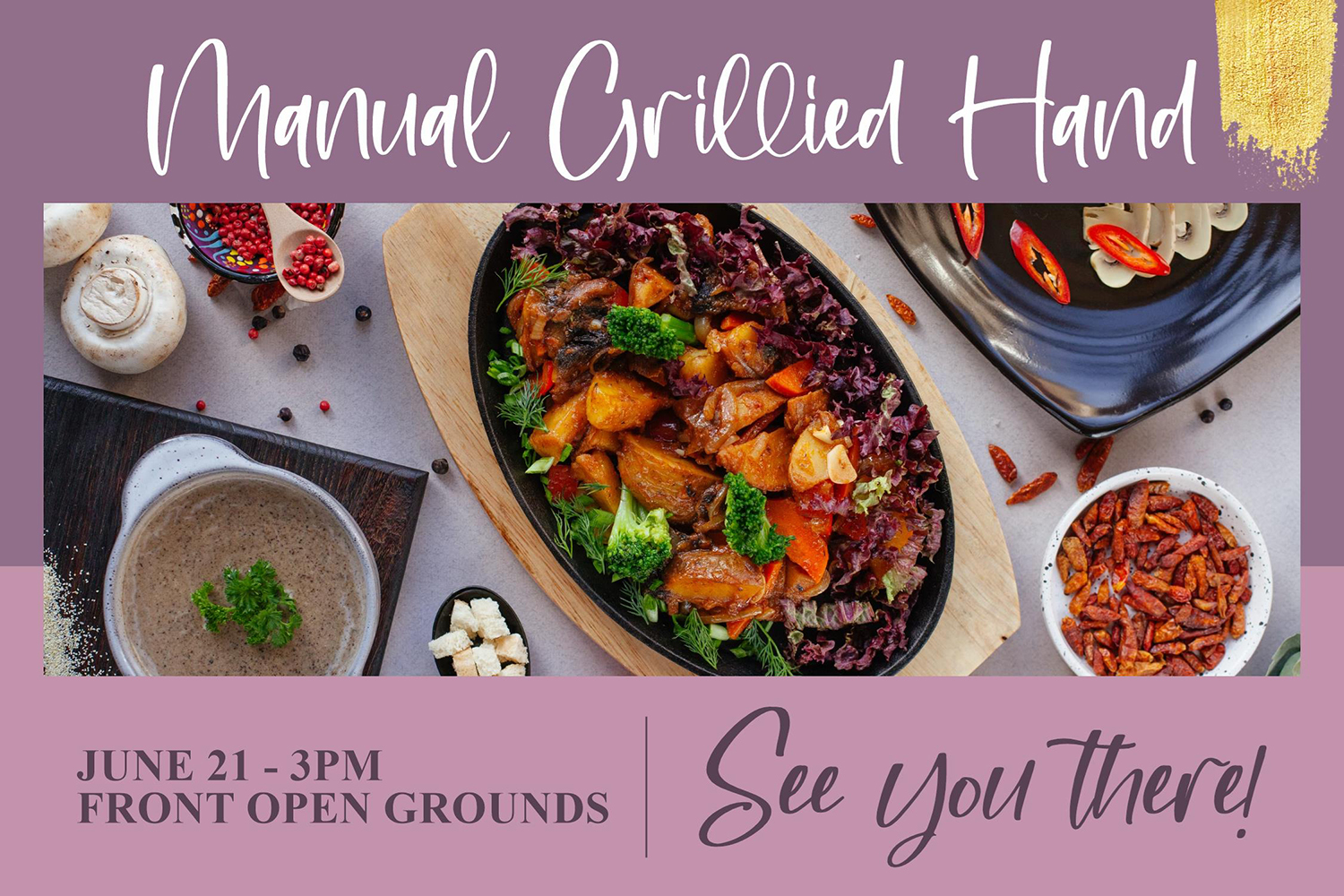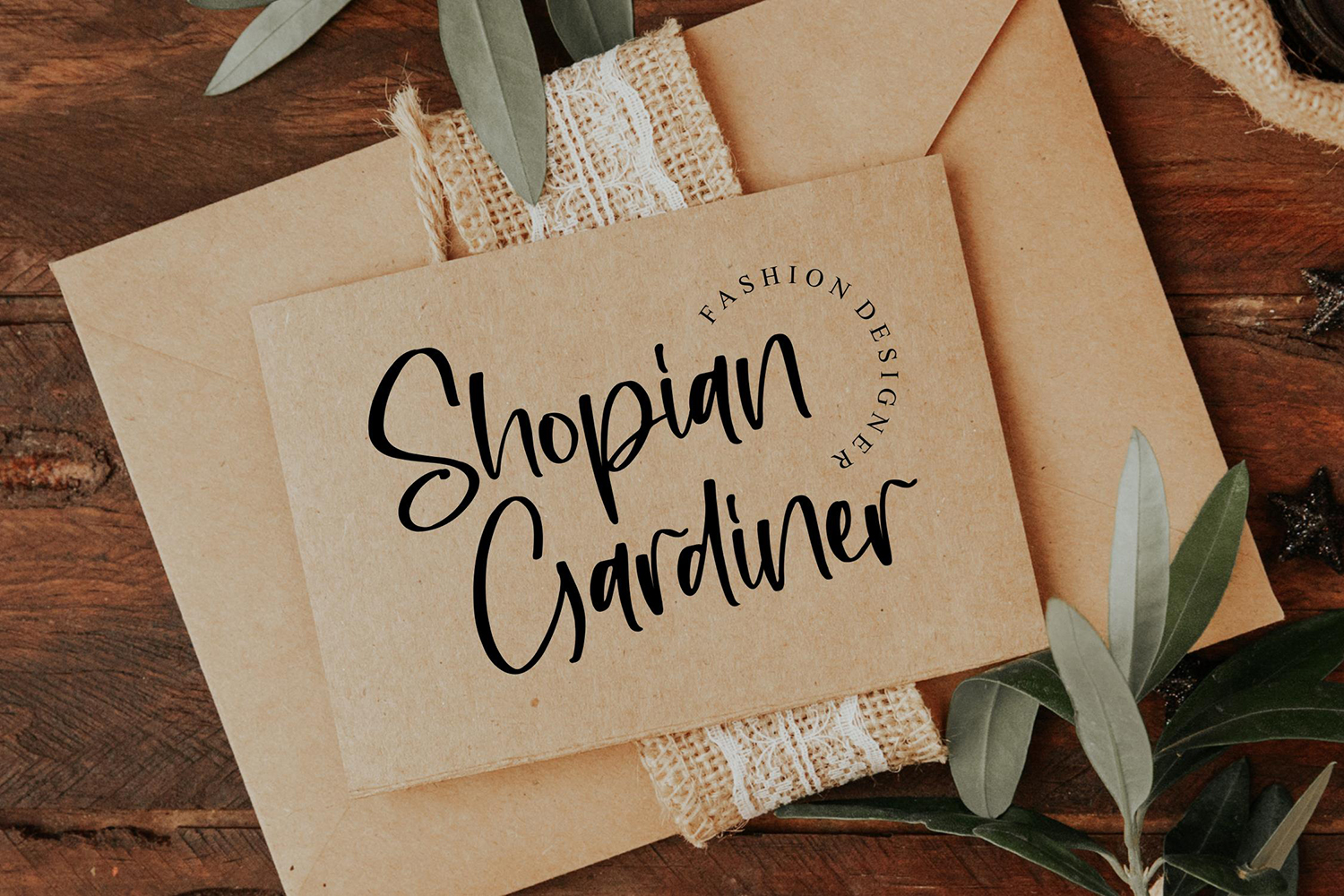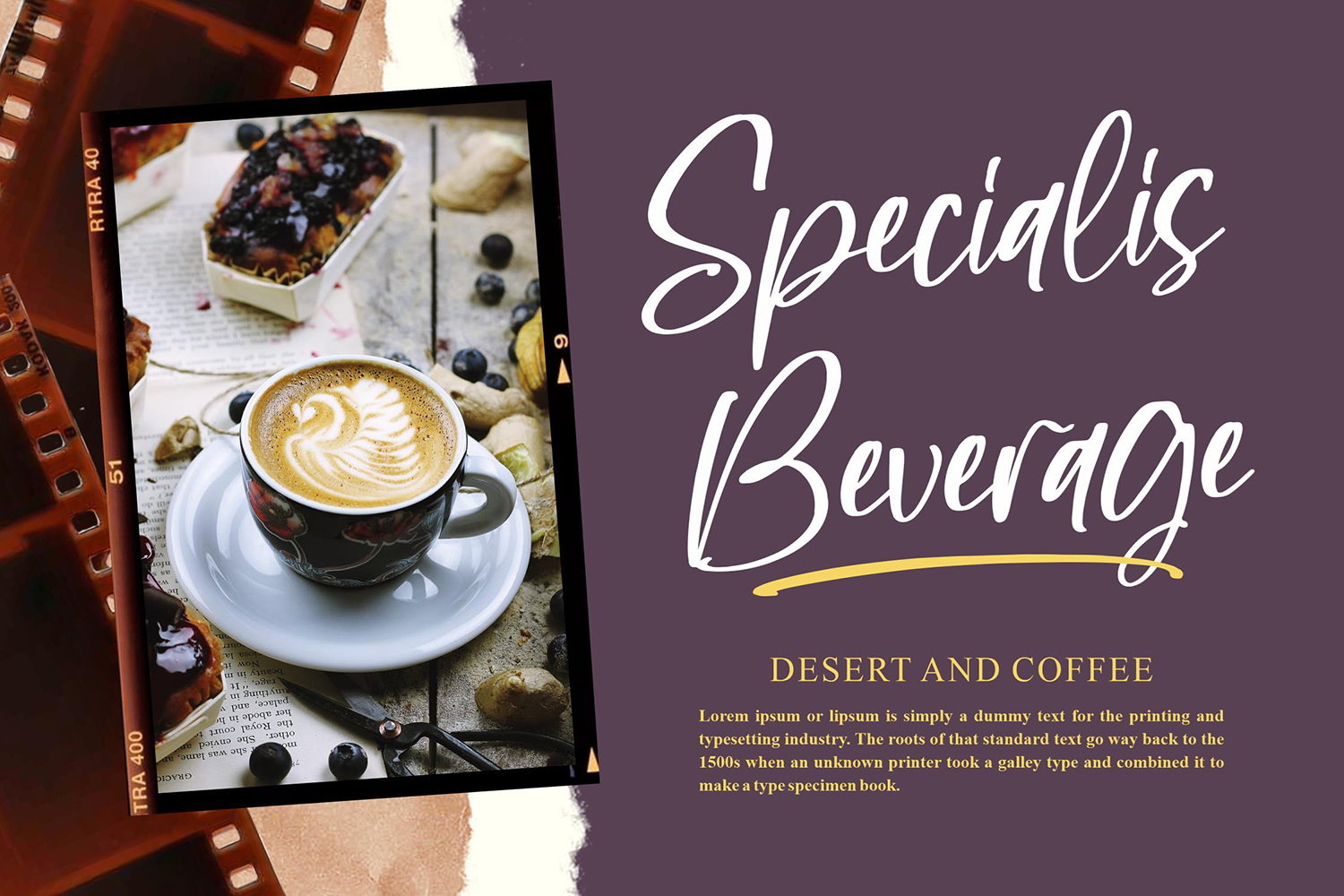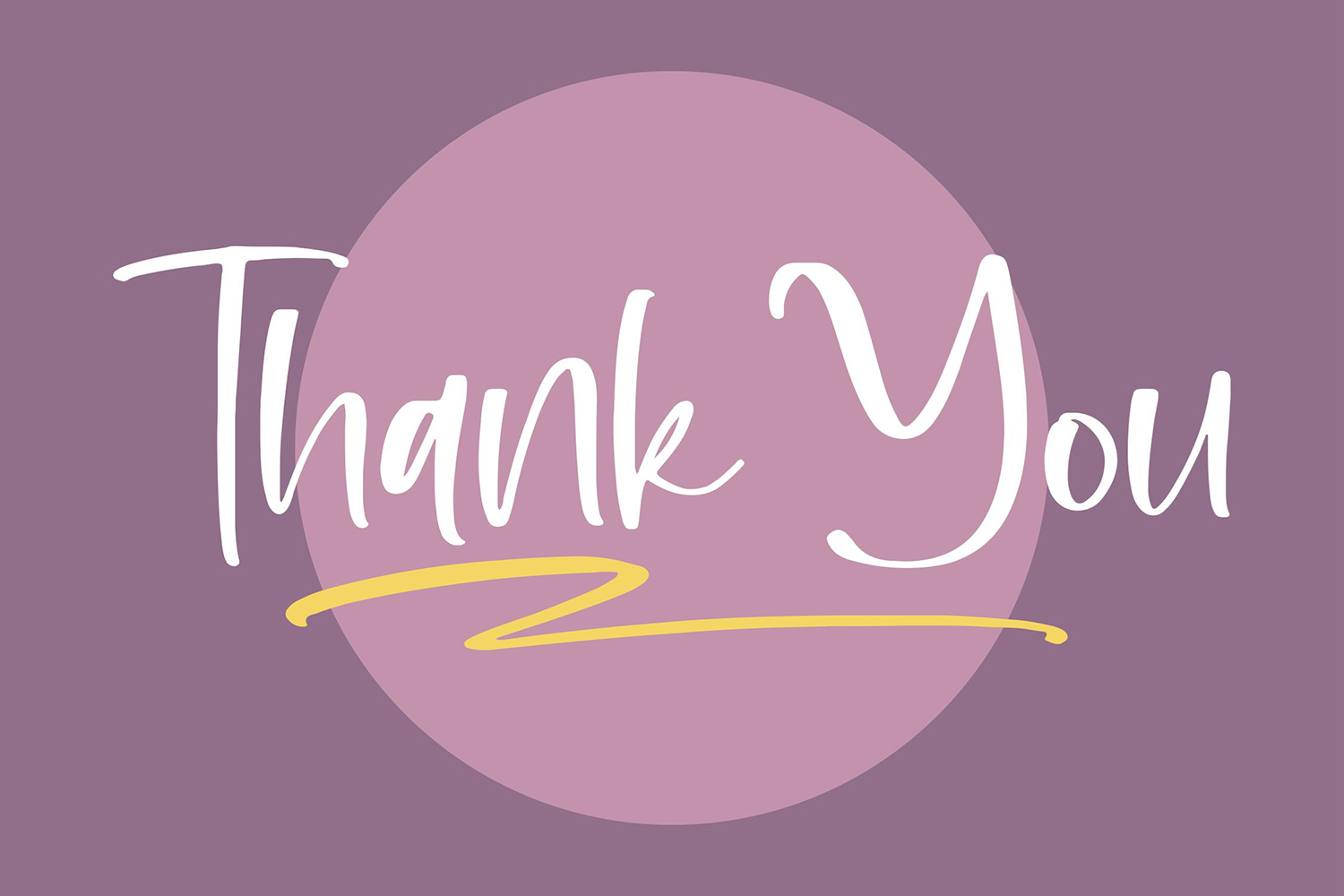
Most Somedays Free Font
Most Somedays Free Font is a stunning script font that exudes beauty and romance. Its fluid strokes and curling letters create a sense of movement and emotion, as if each word is a love letter written by a passionate hand. The font is delicate and feminine, yet strong and confident, embodying the spirit of love and beauty. With its charming and captivating style, this font is perfect for any project that requires a touch of elegance and sophistication.